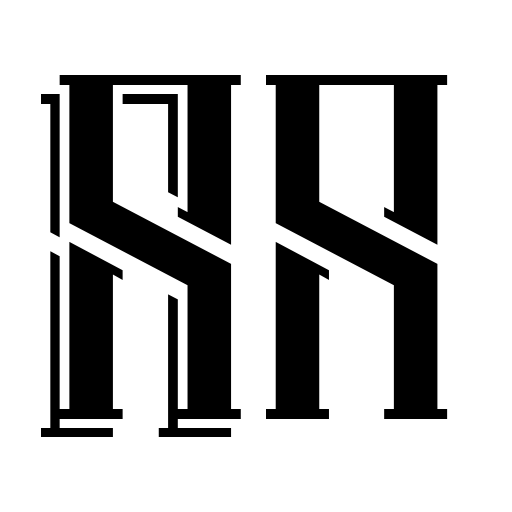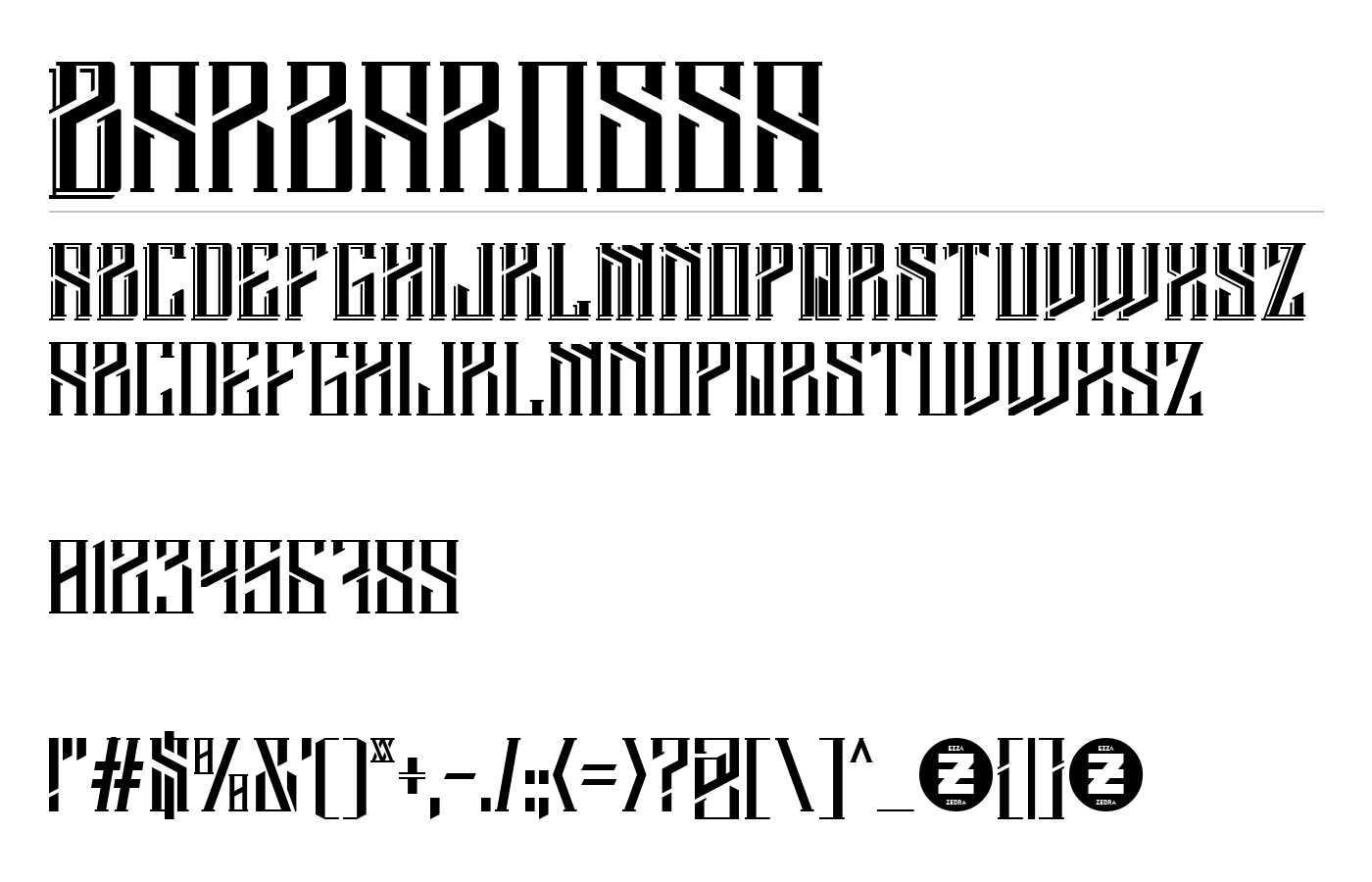
Barbarossa is a bold, condensed serif font with a strong vertical orientation and sharp, angular lines, giving it a striking, modern, and slightly gothic feel. Its high contrast strokes and unique, geometric letter shapes make it ideal for bold headlines, logos, and branding that aims to convey power, elegance, and a distinct edgy character. This font works best in display uses where attention-grabbing style and dramatic impact are key.
Barbarossa Font
About Barbarossa Font